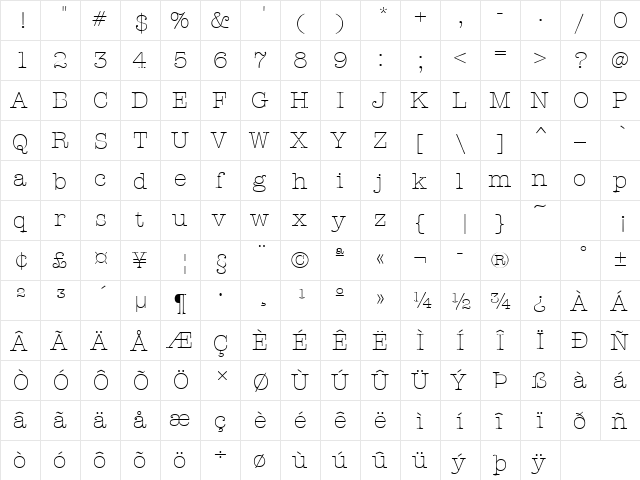
TypewriterL Regular
TypewriterL brings the precise, column-aligned rhythm of monospaced typography to designs that value technical clarity and systematic order.
Pro Tip: Use TypewriterL with slightly increased line-height for extended reading — fixed-width spacing can feel dense in longer passages without extra breathing room.